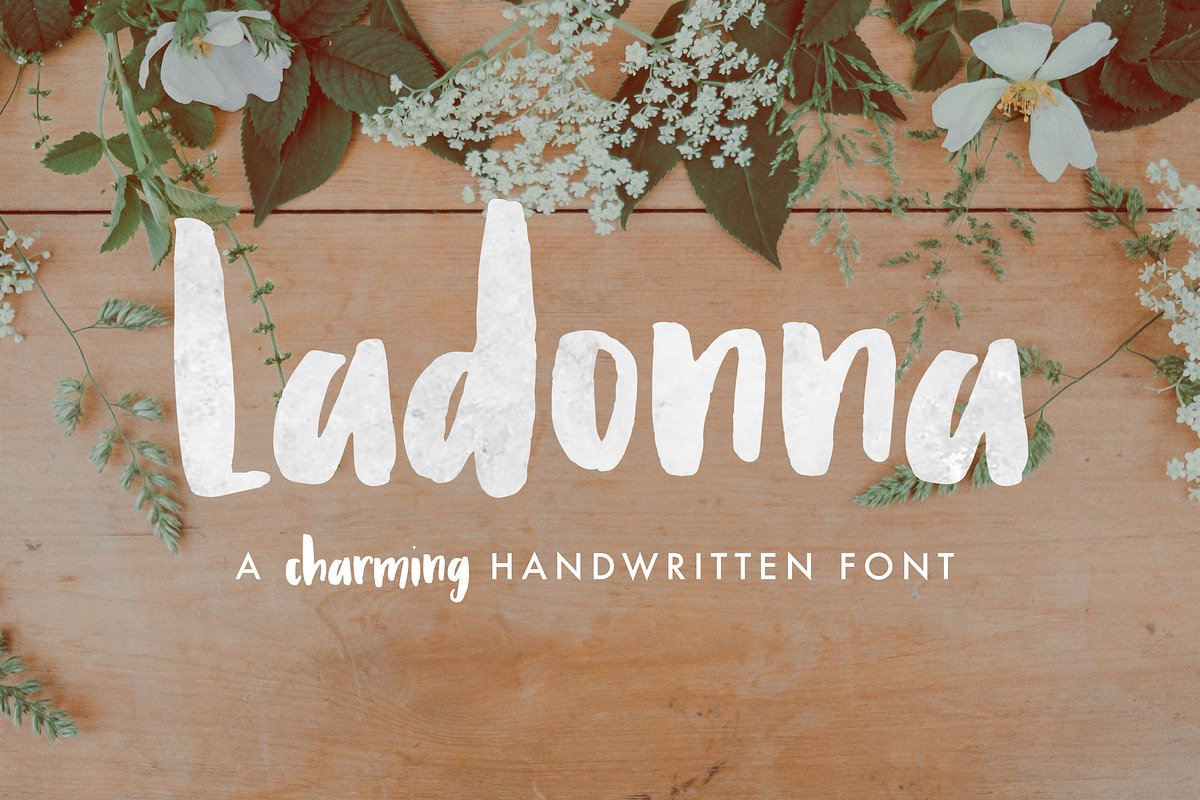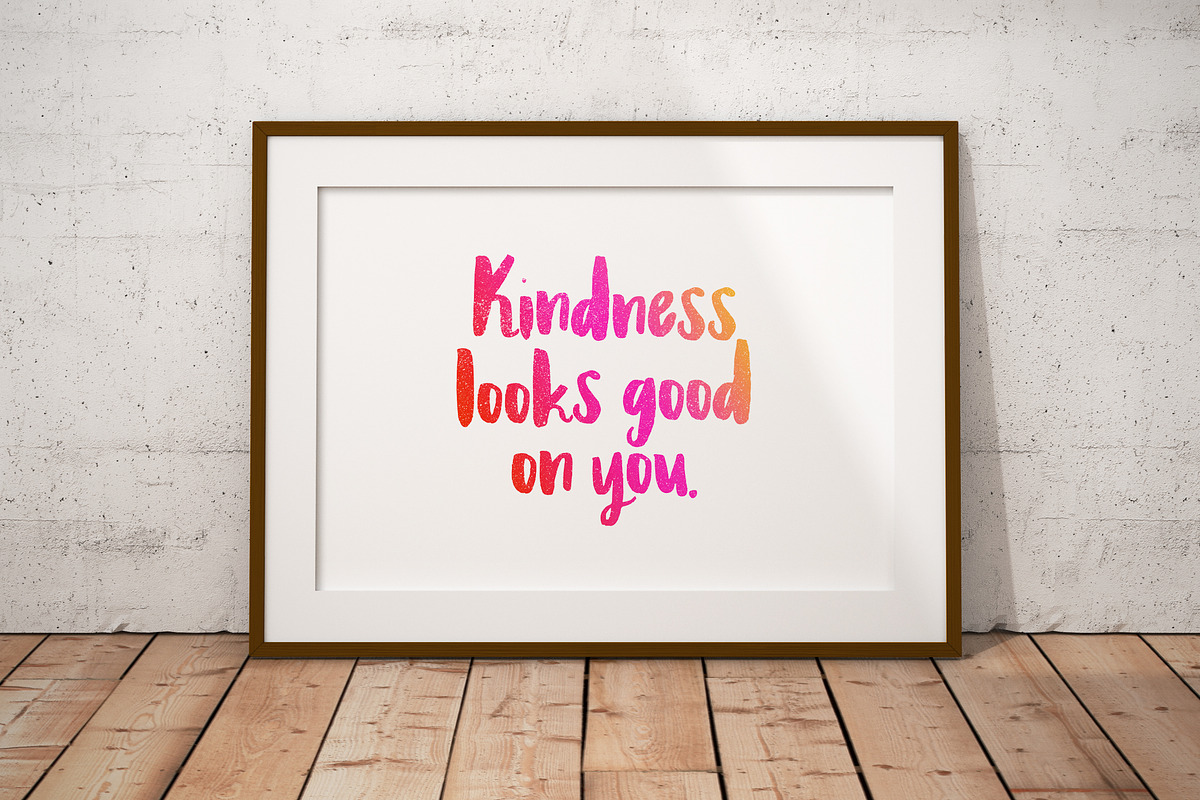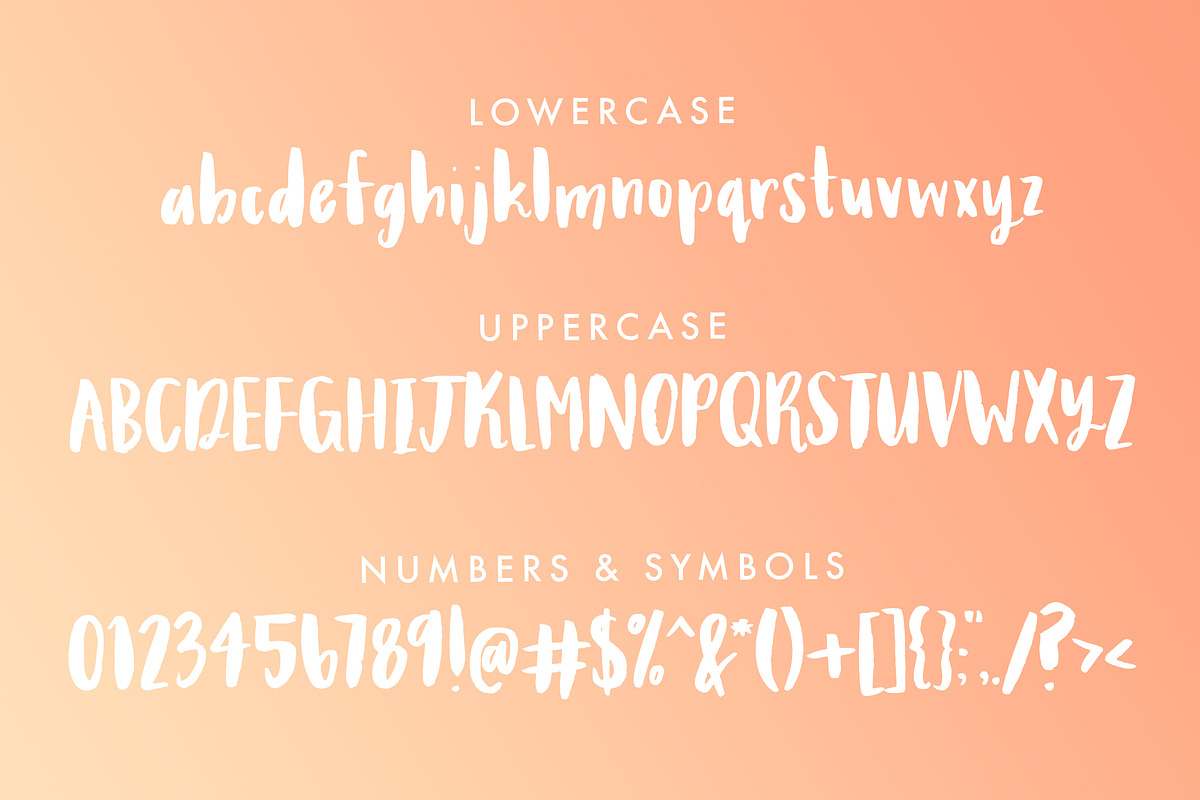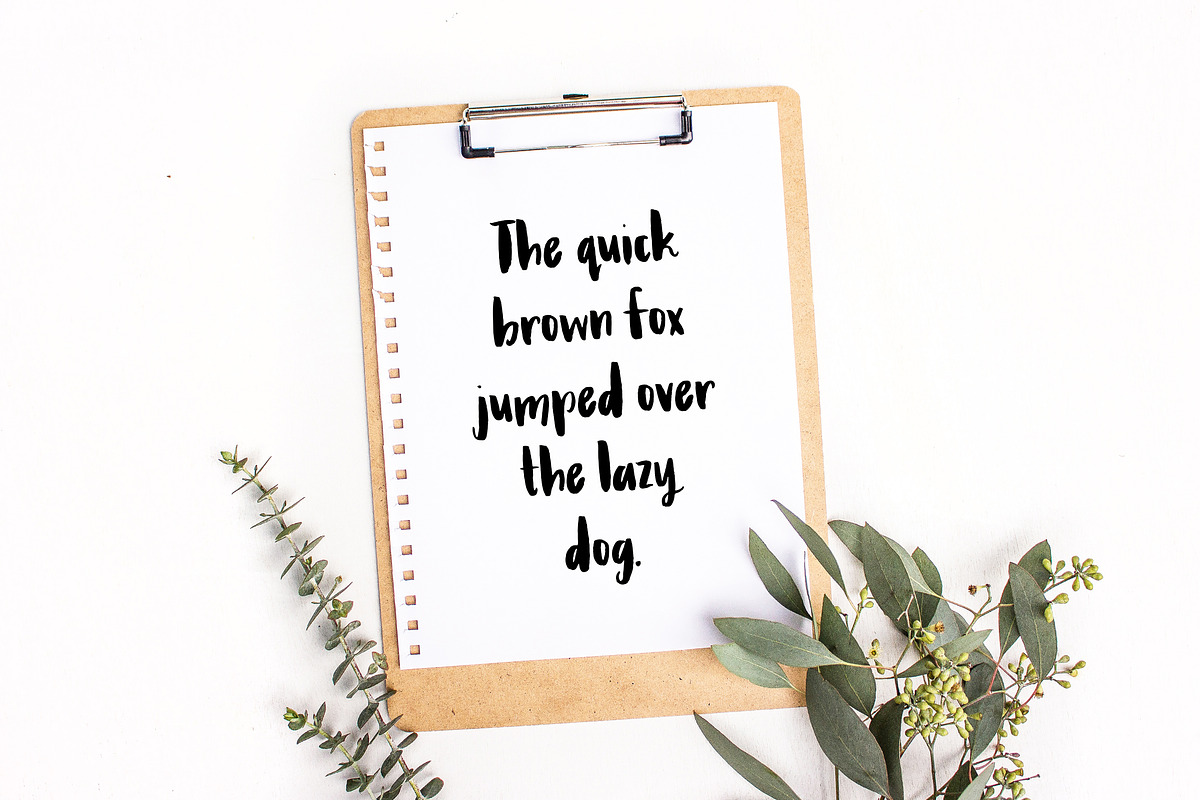
Ladonna Brush Font
Ladonna is a charming, fun, cute font with lots of character. Inspired and created from brush lettering, this font has varying thicknesses, curvy features, and chunky letterforms.
- Ladonna contains upper & lowercase characters, numerals and a large range of punctuation and symbols.
Why Ladonna Brush Font is worth a look
Ladonna Brush Font by CaseyKleeb fits naturally into Branding, posters, packaging, typography.